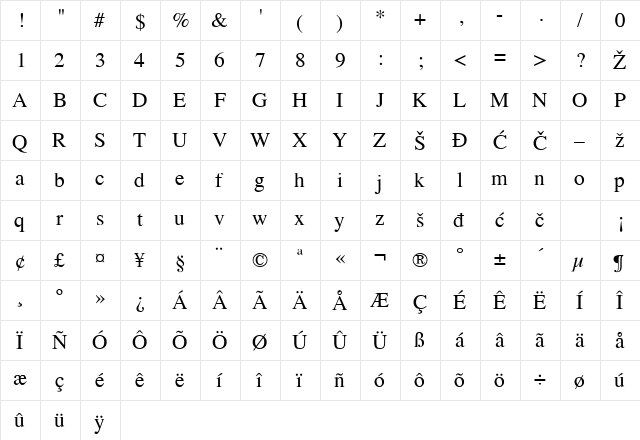
TimesYU Regular
Design Context for TimesYU Typeface
TimesYU offers clean, dependable letterforms without strong stylistic allegiance, making it a practical choice for designers who need flexibility.
Pro Tip: Use TimesYU in both headline and body roles to test its range before committing to a single application.